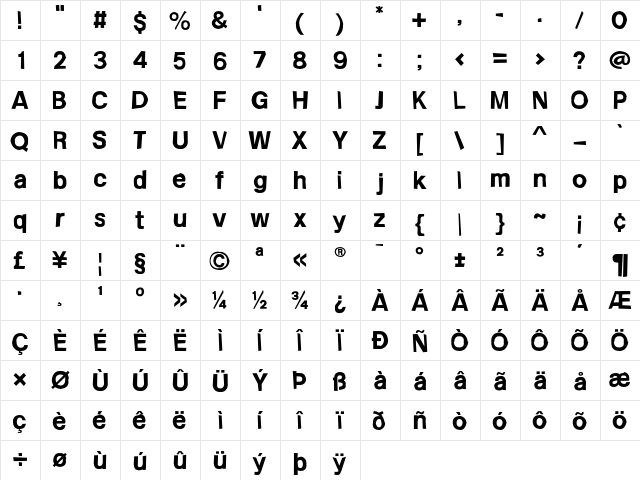
Frail Sans Bold
Design Context for Frail Typeface
Frail offers clean, dependable letterforms without strong stylistic allegiance, making it a practical choice for designers who need flexibility. Its bold stroke weight gives it real presence on the page.
Pro Tip: Use Frail in both headline and body roles to test its range before committing to a single application.